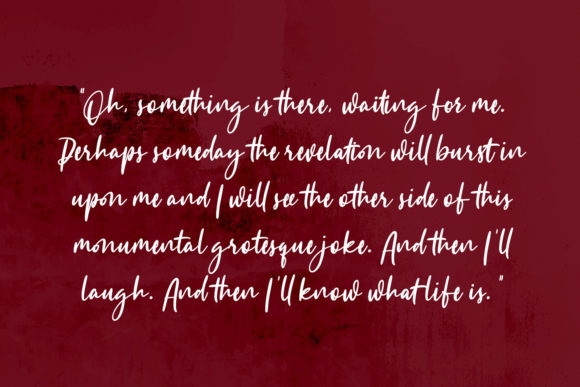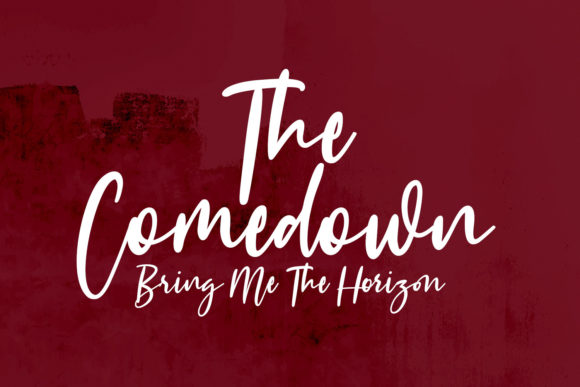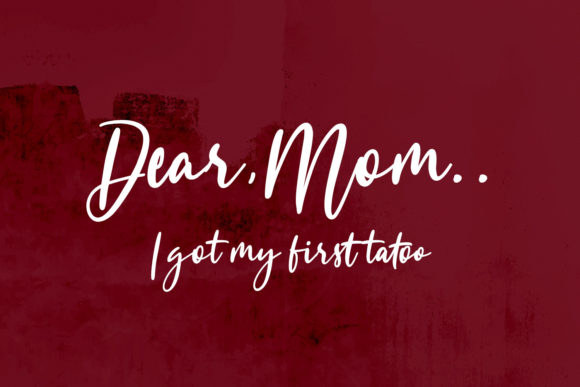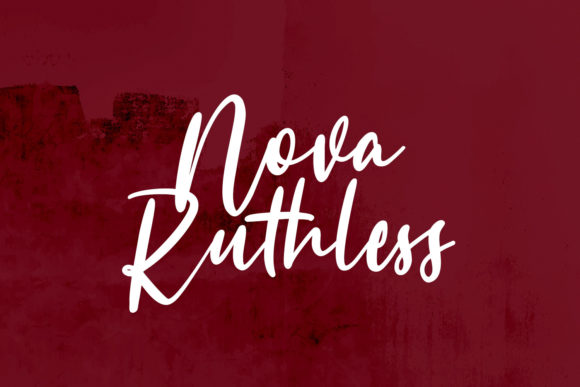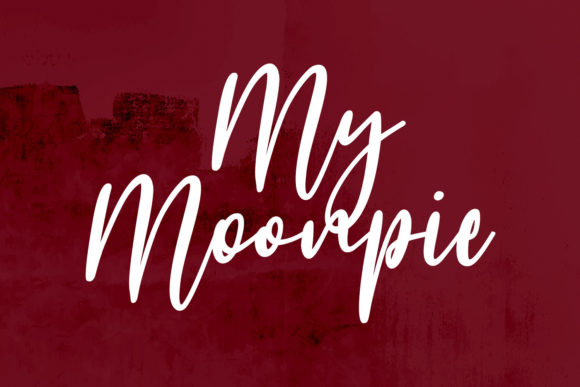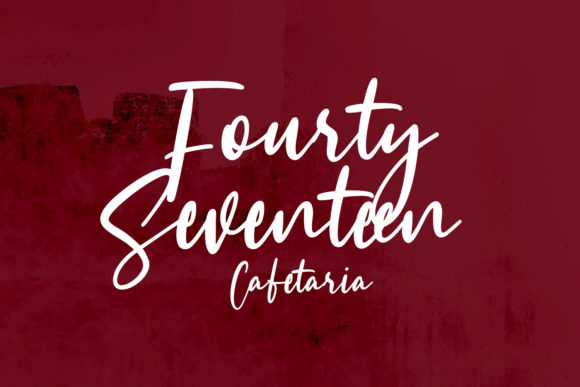
Unlock the Charm of Handwritten Creativity with Batopika Script Font
Have you ever sat down with a blank canvas, feeling the urge to create something unique and captivating? The thrill of bringing a new idea to life is exhilarating, but sometimes it’s the small details that make all the difference. For designers, the right font can elevate a project from ordinary to extraordinary. That’s where Batopika Script Font comes in – a casual handwritten script font that’s perfect for adding a touch of personality to any creation.
This versatile font is designed to bring a sense of warmth and authenticity to your work, making it an invaluable asset to any designer’s library. Whether you’re crafting a logo, designing a website, or creating a social media post, Batopika Script Font has the potential to take your project to the next level. Its unique charm and character make it a standout choice for designers looking to add a personal touch to their work.
- Unique Characteristics: This script font features a beautiful, hand-drawn design with a touch of elegance and sophistication, perfect for creating a professional yet artistic look in your designs.
- Font Style: This font comes in a single style, making it easy to use and maintain consistency in your designs. However, the script nature of the font adds a unique touch to your typography.
Review of Batopika Script Font
Overall, I’m impressed with the elegance and sophistication of Batopika Script Font. It’s perfect for adding a touch of whimsy and personality to your designs. ✨ The flowing connections and organic feel of the font make it ideal for use in creative and artistic projects.
The font’s versatility is another strong point. It can be used for a wide range of applications, from branding and logos to typography and quotes. ✨ The font’s subtlety makes it easy to pair with other fonts and styles, allowing for endless design possibilities.
- ⚠️ The font may not be suitable for use in smaller text sizes, as the connections between letters can become blurry and difficult to read.
- ⚠️ The font’s elegance can also make it feel somewhat generic, lacking the unique personality that some designers may be looking for.
- ⚠️ In some cases, the font’s connections may not be entirely consistent, resulting in a slightly uneven appearance.
Overall, I would give Batopika Script Font a solid 4 out of 5 stars. While it may have some limitations, its beauty and versatility make it a valuable addition to any designer’s toolkit.
Tips for Getting the Most Out of Batopika Script Font
1. Use the font for creative and decorative purposes, such as headings, titles, and quotes.
2. Combine the font with other fonts for a unique and eye-catching look.
3. Experiment with different font sizes, colors, and alignments to achieve the desired effect.
2. Social media graphics and posts.
3. Advertising and marketing materials.